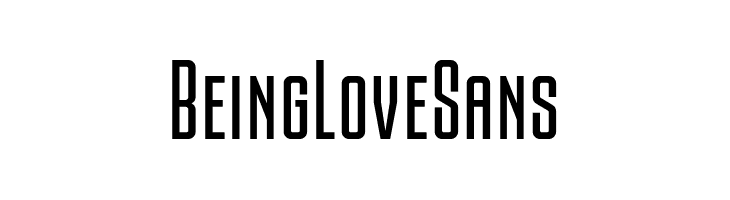
A bold, modern sans-serif font with a tall, narrow, and condensed style.
A tall, narrow font with consistent stroke width and a modern, sleek appearance.
A modern, geometric font with a sleek, condensed style.